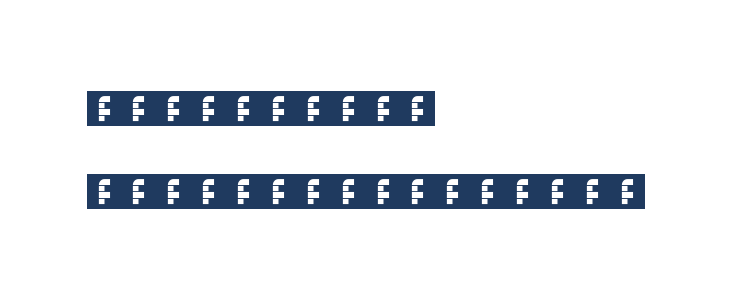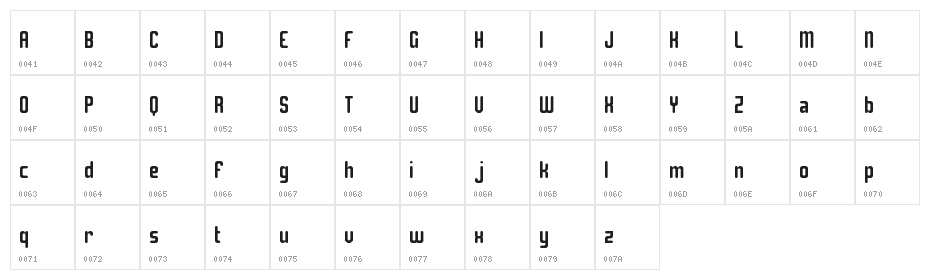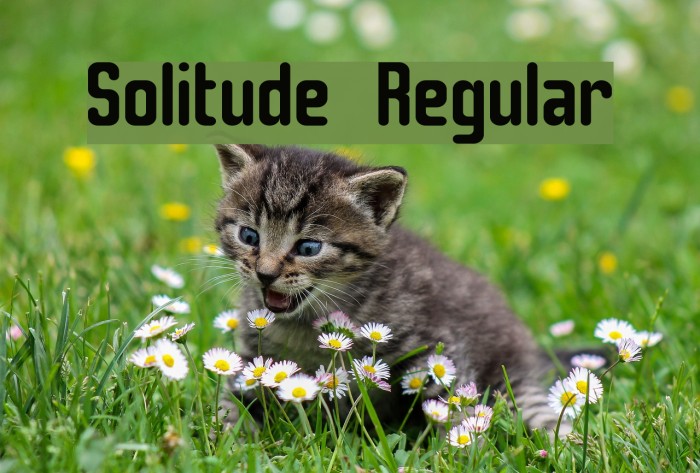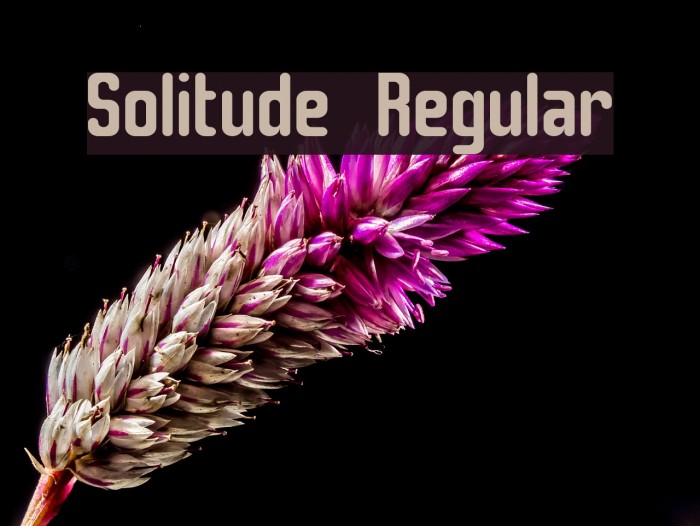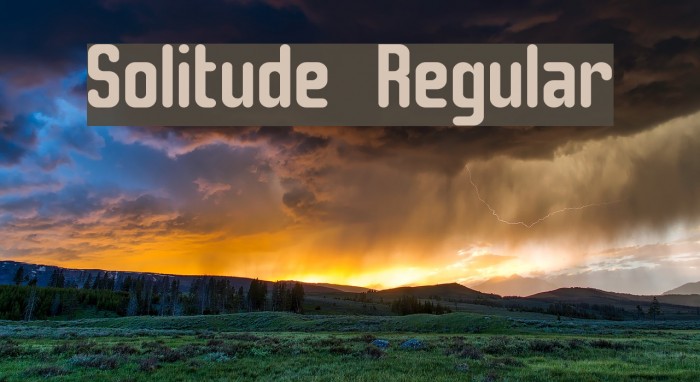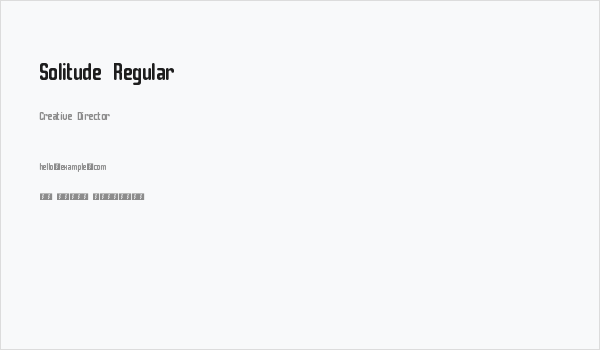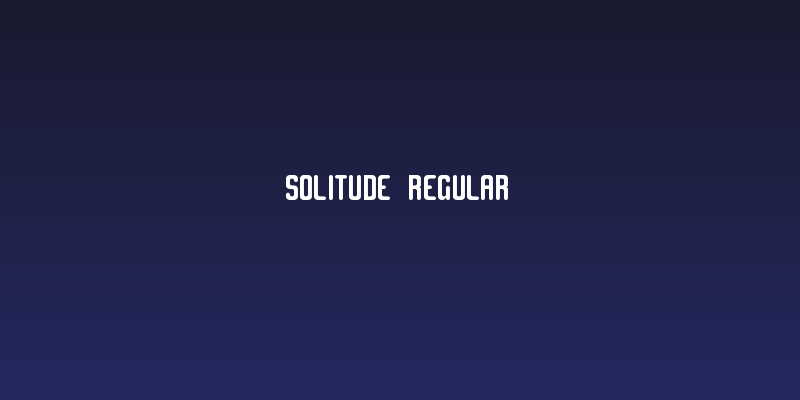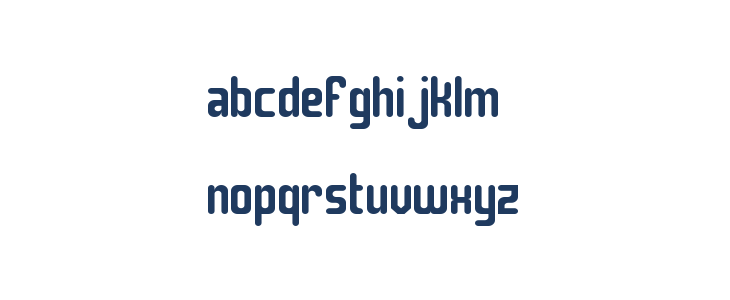
Solitude Regular Font
Solitude Regular Description
This font features a bold and rounded style with a modern and playful appearance. The characters are uniformly thick, giving it a strong presence. The rounded edges soften the overall look, making it approachable and friendly. The uppercase and lowercase letters maintain a consistent design, ensuring readability and coherence across different text sizes. The numerals and special characters follow the same design principles, providing a cohesive visual experience. This font is suitable for projects that require a contemporary and engaging look.
| Proposed Projects | Ideal for branding, posters, children's books, and digital media that require a friendly and modern touch. |